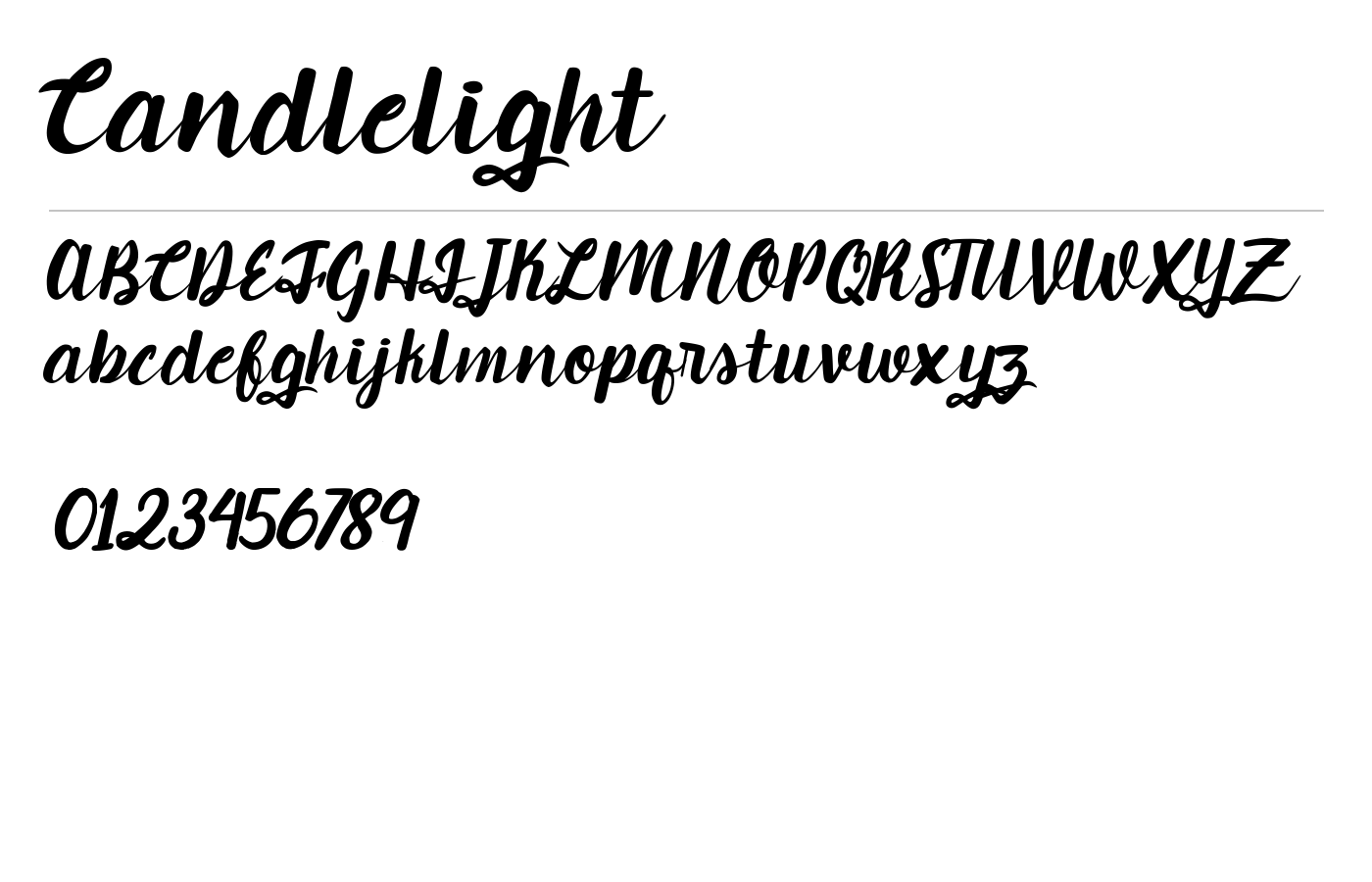
Candlelight is a stylish and smooth script font with a warm, handcrafted feel that brings elegance and charm to any design. Featuring fluid, connected letterforms with subtle calligraphic strokes and moderate contrast, it works beautifully for branding, invitations, and headlines where a personal, inviting tone is desired. This font is perfect for adding a touch of sophistication and friendliness to projects in fashion, lifestyle, and creative industries.
Candlelight Font
About Candlelight Font
| Font family | Candlelight Font |
| Designer | Premiere Graphics |